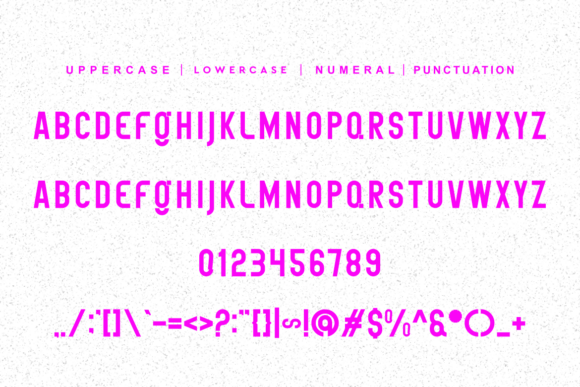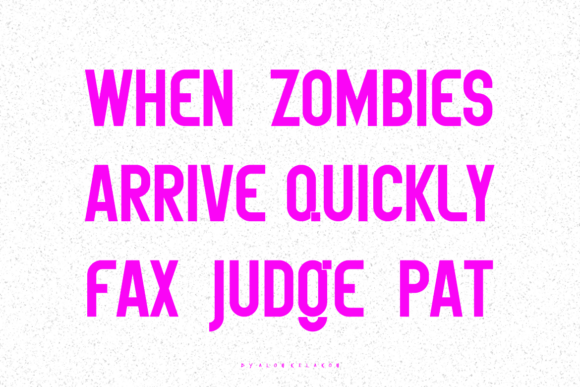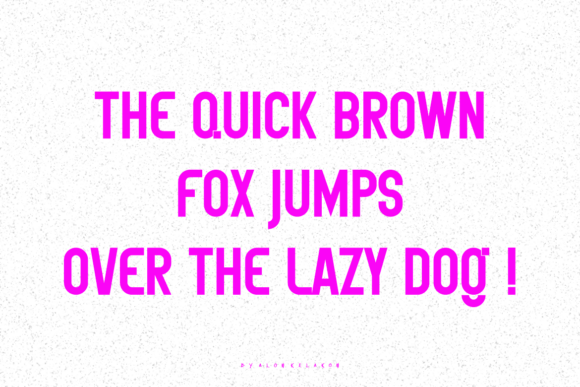
Introduction to Gaduwaq Font Font
Fonts play a crucial role in design, and the Gaduwaq Font font is a typeface that brings both character and versatility to any project. Whether you’re working on a branding project, a website, or a print design, the Gaduwaq Font font offers a unique style that can elevate your work.
| 📌 Font Name | Gaduwaq Font |
| 👤 Author | alonkelakon |
Gaduwaq Font is unique.
Gaduwaq Font is unique. Ready to use for your design like labeling, movie scenes, posters, movie titles, gigs, album covers, logos, and much more
Key Features of Gaduwaq Font Font
Why Choose Gaduwaq Font Font?
The Gaduwaq Font font is more than just a typeface – it’s a design tool that helps you communicate your message with style and clarity. Its unique character set and versatile design make it suitable for a wide range of applications, from elegant invitations to bold headlines.
With its carefully crafted letterforms and balanced proportions, the Gaduwaq Font font ensures readability and visual appeal across all mediums.
What makes Gaduwaq Font font special?
The Gaduwaq Font font stands out with its unique design, exceptional readability, and versatility across various design applications.